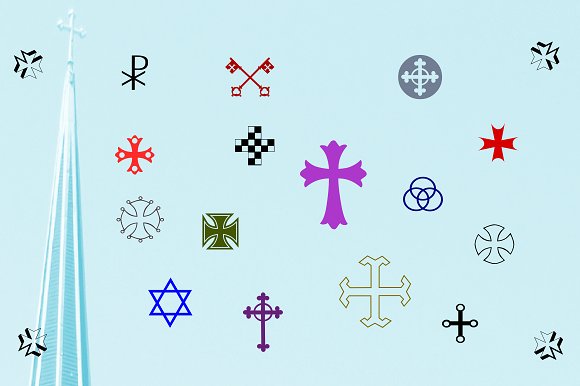
In the vast ocean of fonts, allow us to unveil a treasure trove of religious symbols – introducing Cruxially Font, a dingbats font family by Proportional Lime. Embark on a journey of spiritual exploration as you discover nearly 500 glyphs, each a testament to the boundless diversity of faith.
At its core, Cruxially Font is a celebration of belief, a tribute to the kaleidoscope of spiritual expressions that color our world. From the intricate details of crosses to the profound symbols of various faiths, this font is a tapestry of sacredness, an homage to the power of divine connections.
As a designer, you hold the key to unlocking the transformative potential of Cruxially Font. Elevate your creative projects with a touch of the divine, weaving symbols of faith into your designs with effortless grace. Craft logos and branding that resonate with spiritual seekers, creating a connection that transcends words.
With Cruxially Font at your fingertips, unleash your creativity and embark on a journey into the heart of faith. Transform ordinary designs into expressions of reverence and devotion. Dare to be inspired by the boundless possibilities of religious iconography.